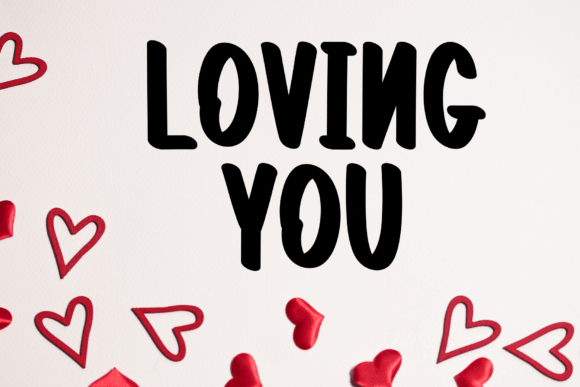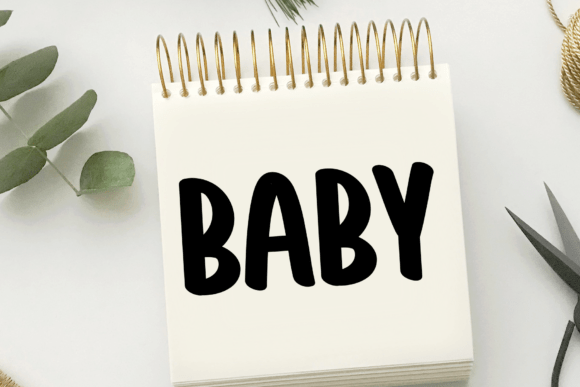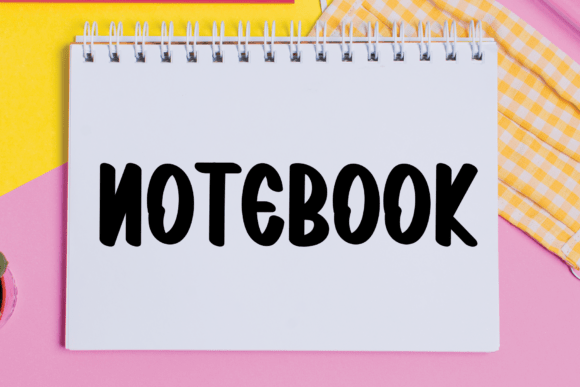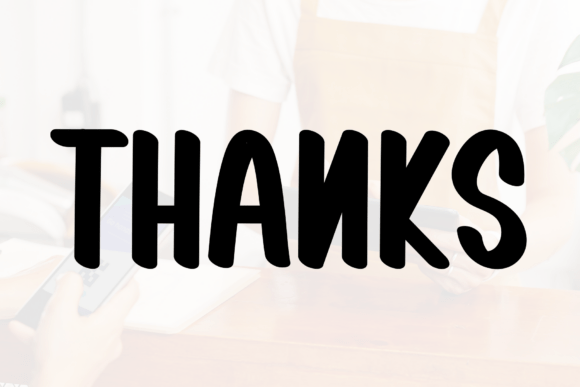
Introducing Bold Girlies Font: The Perfect Handwritten Font for Your Design Projects
Are you tired of using the same old fonts for your design projects? Look no further than Bold Girlies Font, a charming handwritten font that is sure to add a touch of personality to any design. With its smooth strokes and organic lines, Bold Girlies Font is the perfect choice for designers and crafters looking to create unique and eye-catching designs.
What Makes Bold Girlies Font So Special?
Bold Girlies Font is a one-of-a-kind font that is filled with a sense of heartfelt perfection. Its smooth strokes and organic lines evoke a relaxed atmosphere, making it perfect for a variety of design projects. Whether you’re looking to create a brand identity, design an invitation, or create social media graphics, Bold Girlies Font is the perfect choice.
Characteristics of Bold Girlies Font
So, what makes Bold Girlies Font so special? Here are just a few of its key characteristics:
- Smooth Strokes: Bold Girlies Font features smooth, flowing strokes that give it a natural and effortless look.
- Organic Lines: The font’s organic lines add a touch of whimsy and personality to any design.
- Handwritten Feel: Bold Girlies Font has a distinctly handwritten feel, making it perfect for designs that require a personal touch.
- Relaxed Atmosphere: The font’s smooth strokes and organic lines evoke a relaxed atmosphere, making it perfect for designs that require a calming and soothing feel.
Uses for Bold Girlies Font
Bold Girlies Font is a versatile font that can be used for a wide range of design projects. Here are just a few ideas to get you started:
- Branding: Use Bold Girlies Font to create a unique and eye-catching brand identity that sets your business apart from the competition.
- Invitations: Add a touch of personality to your invitations with Bold Girlies Font, perfect for weddings, birthday parties, and other special occasions.
- Social Media Graphics: Use Bold Girlies Font to create eye-catching social media graphics that are sure to grab the attention of your followers.
- Stationery: Add a touch of whimsy to your stationery with Bold Girlies Font, perfect for letters, cards, and other paper crafts.
Why Designers and Crafters Love Bold Girlies Font
So, why do designers and crafters love Bold Girlies Font? Here are just a few reasons:
- Unique and Eye-Catching: Bold Girlies Font is a one-of-a-kind font that is sure to add a touch of personality to any design.
- Easy to Read: Despite its unique and whimsical feel, Bold Girlies Font is easy to read and understand, making it perfect for designs that require a clear and concise message.
- Versatile: Bold Girlies Font can be used for a wide range of design projects, from branding and invitations to social media graphics and stationery.
- High-Quality: Bold Girlies Font is a high-quality font that is sure to impress, with smooth strokes and organic lines that give it a natural and effortless look.
In conclusion, Bold Girlies Font is a charming handwritten font that is sure to add a touch of personality to any design project. With its smooth strokes and organic lines, Bold Girlies Font is the perfect choice for designers and crafters looking to create unique and eye-catching designs. Whether you’re looking to create a brand identity, design an invitation, or create social media graphics, Bold Girlies Font is the perfect choice. So why wait? Try Bold Girlies Font today and see the difference it can make in your designs!